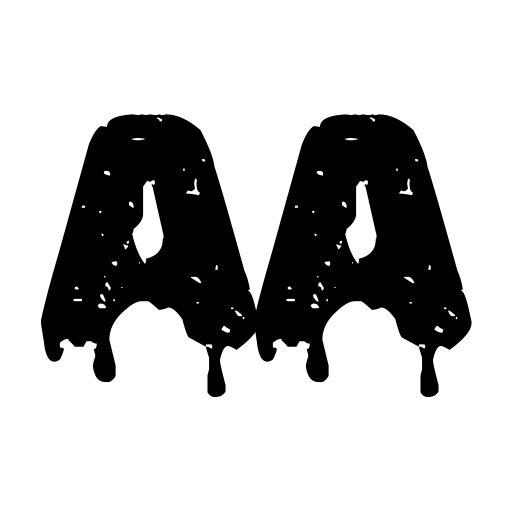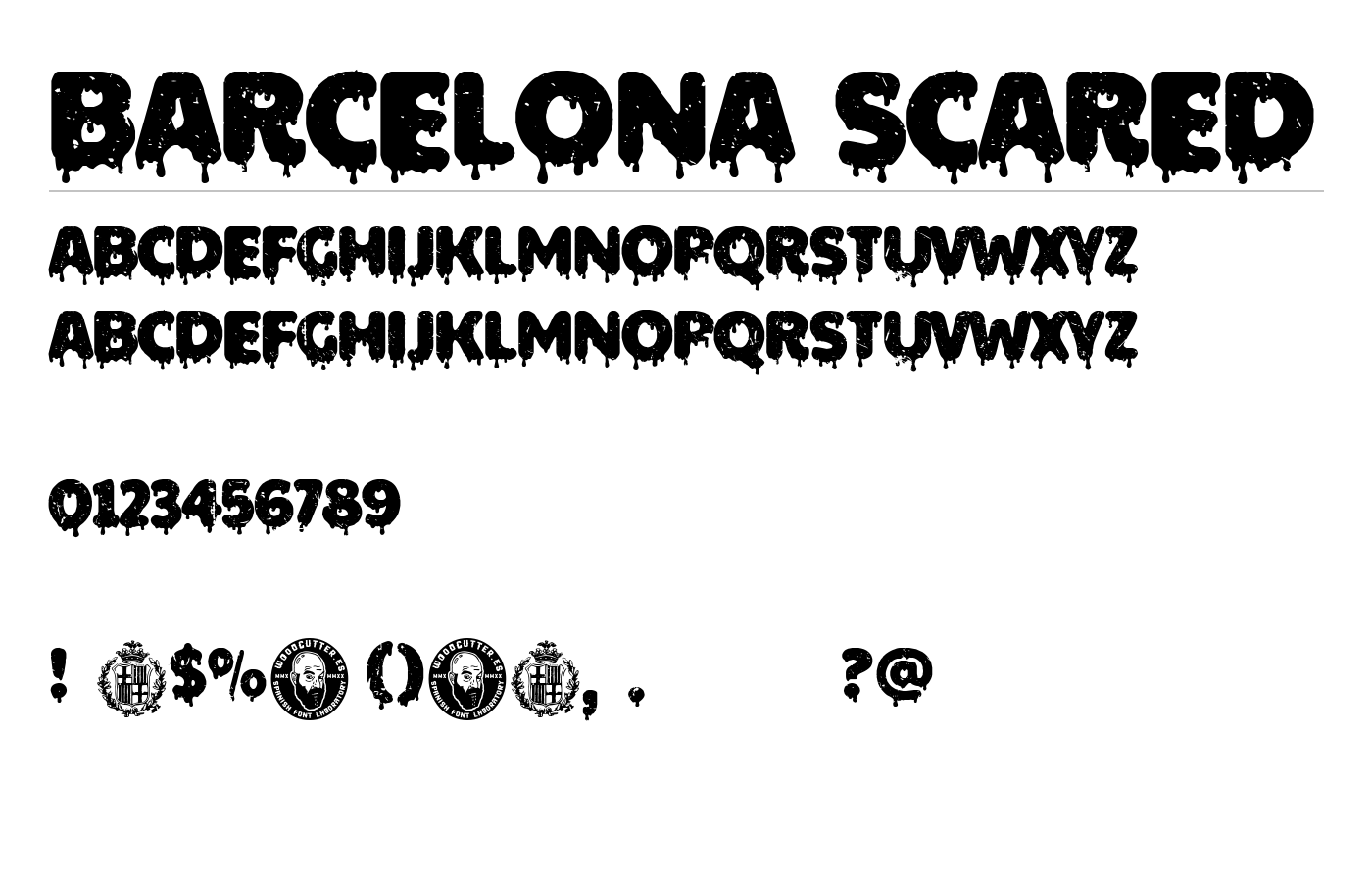
Barcelona Scared is a bold, decorative display font with a dripping, spooky effect that makes each character appear as if melting or oozing. Its heavy weight and quirky shapes suit creative, Halloween-themed designs, posters, and playful branding that seeks a dramatic, eerie vibe. This font works best for headlines and titles where a bold, eye-catching style is needed to convey fun and fright.
Barcelona Scared Font
About Barcelona Scared Font